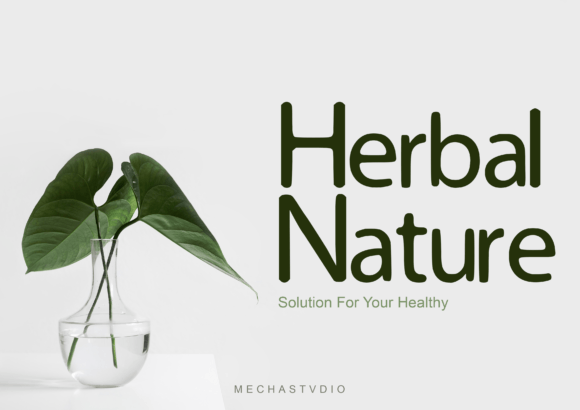
Introduction to Sansquare Font
Sansquare is a simple sans serif font with a unique feel and a stunning impact.
It will add a natural spark to any design project that you wish to create .